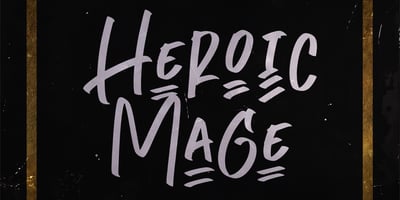
Heroic Mage Font Family was designed by Anton Cahyono and published by Motokiwo. Heroic Mage contains 1 styles and family package options. Heroic Mage – a cool marker typeface with natural handwriting style. It’s all caps font that great for poster, headline, text overlay, logo, branding and more. Features: – Uppercase – Lowercase – Numeral & Punctuation – Multilingual Support